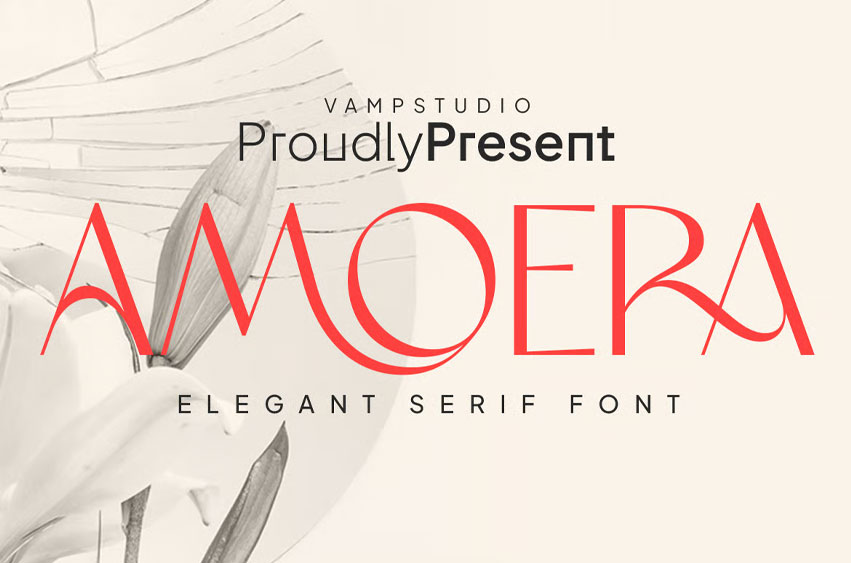
Amoera Serif Font
Amoera Serif Font is an elegant modern serif font designed to express sophistication and style. With its refined curves, balanced contrasts, and stylish alternates, Amoera is perfect for luxury branding, fashion editorials, packaging, and logo design.
This typeface captures a timeless aesthetic with a contemporary touch — ideal for designers seeking a high-end yet versatile serif. Amoera includes uppercase and lowercase letters, punctuation, numbers, ligatures, and multilingual support, ensuring smooth use across various creative projects.
Add class and confidence to your work with Amoera, a modern serif that blends elegance and readability flawlessly.
✦ Features:
• Elegant modern serif design
• Includes ligatures and stylistic alternates
• Uppercase & lowercase letters
• Numbers & punctuation